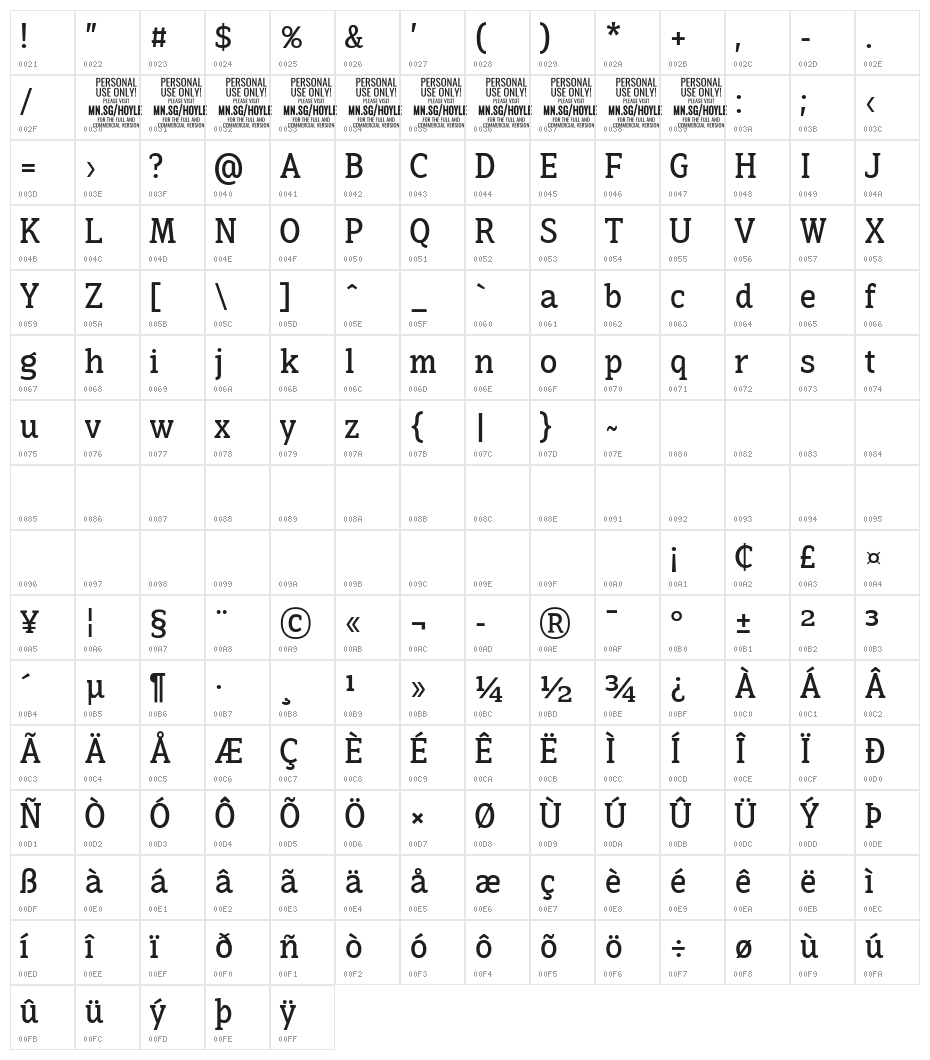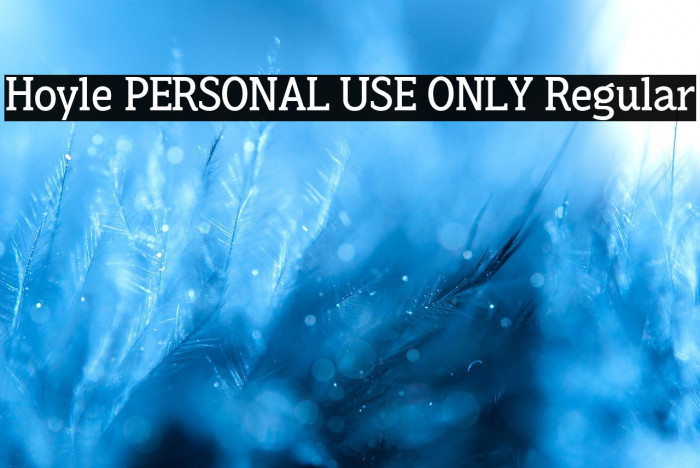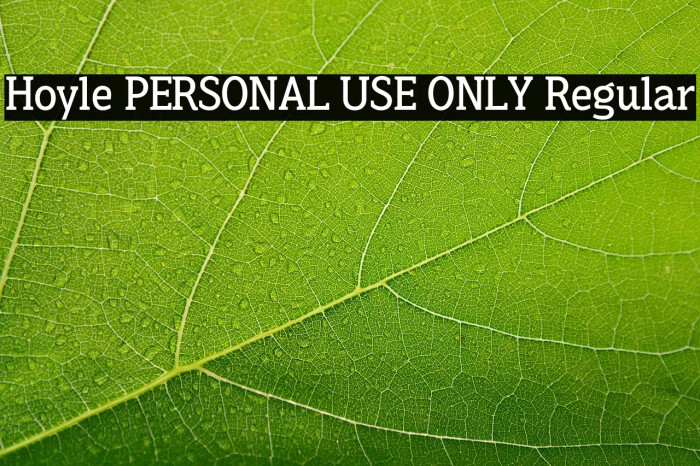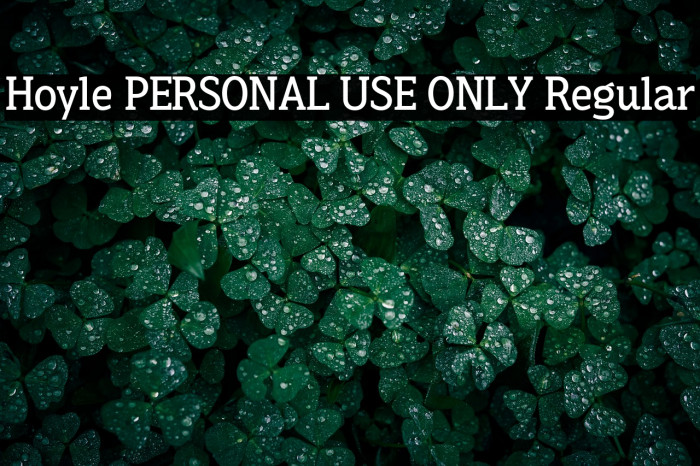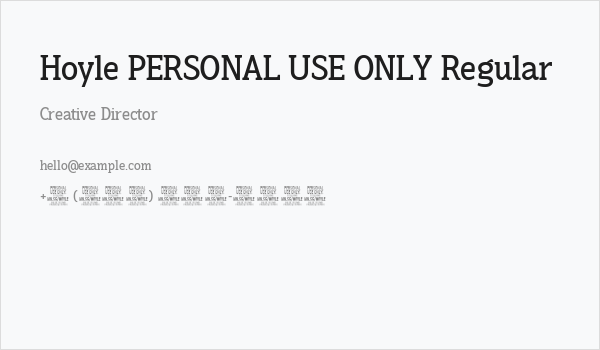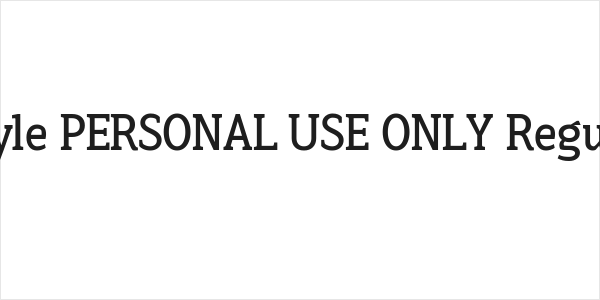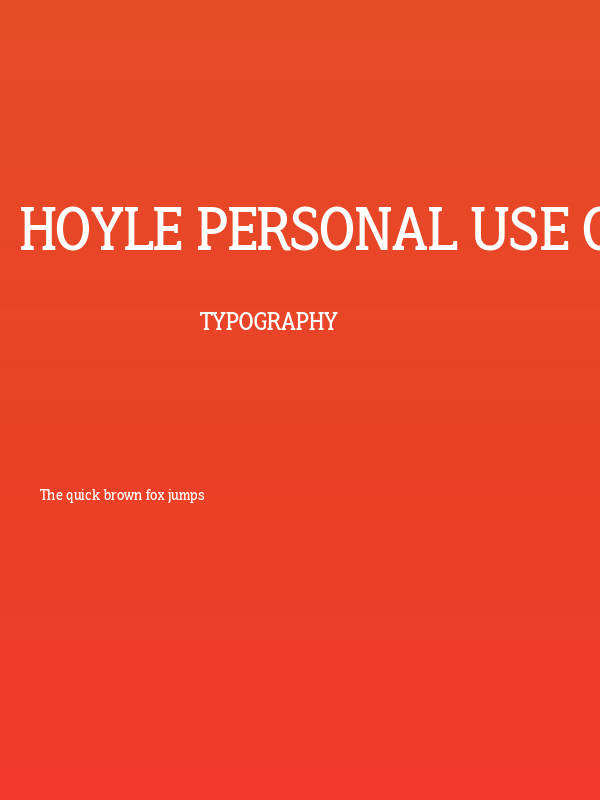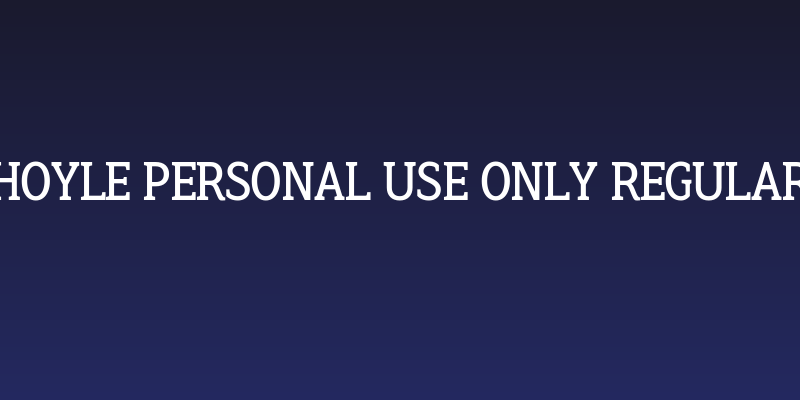
Hoyle PERSONAL USE ONLY Regular Font
Hoyle PERSONAL USE ONLY Regular Description
This font features a classic serif style with a strong presence and clear readability. The uppercase letters are bold and commanding, while the lowercase letters maintain a balanced and harmonious appearance. The numerals and special characters are designed to complement the overall aesthetic, providing a cohesive look across all text elements. The serifs are pronounced, adding a touch of elegance and tradition to the typeface. The stroke contrast is moderate, ensuring that the font remains legible at various sizes. This font is ideal for projects that require a timeless and authoritative feel.
| Proposed Projects | Ideal for book covers, editorial design, formal invitations, and branding that requires a traditional touch. |